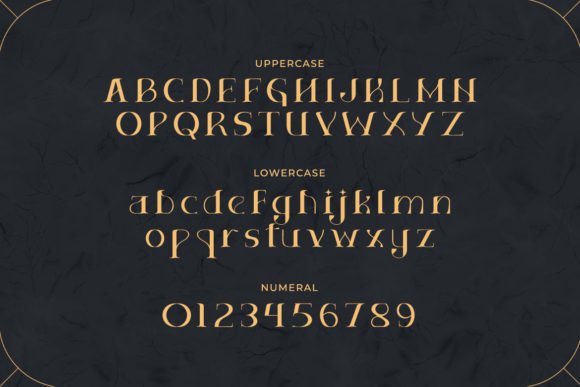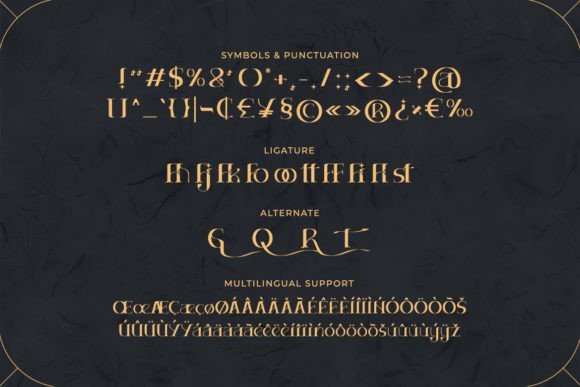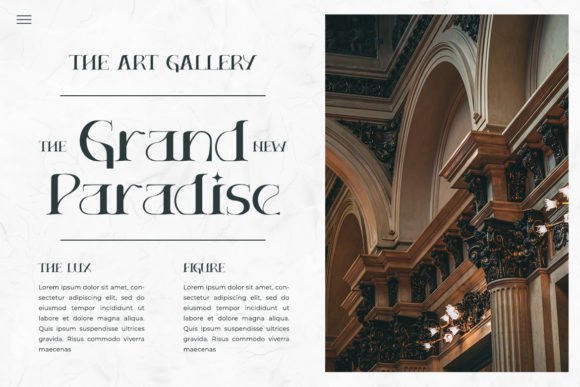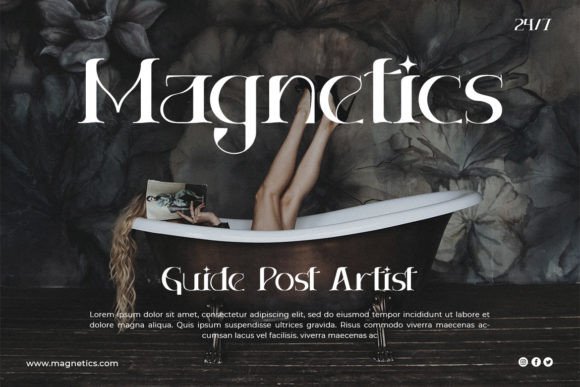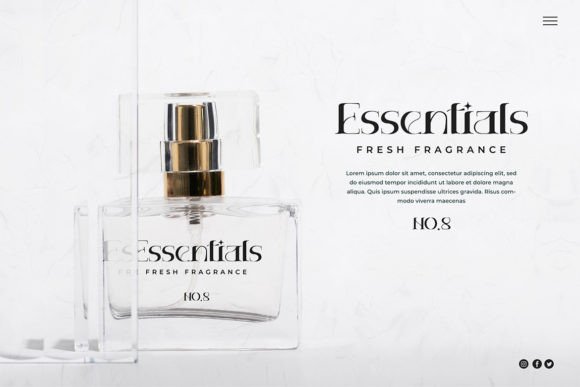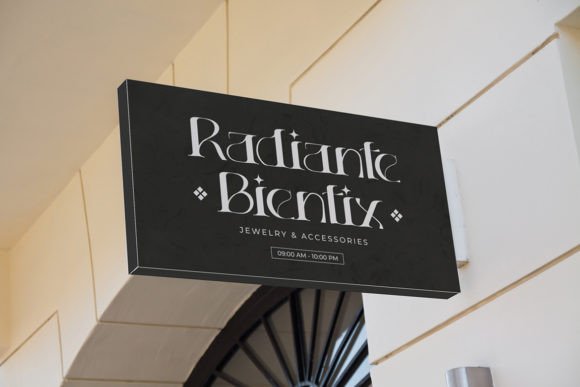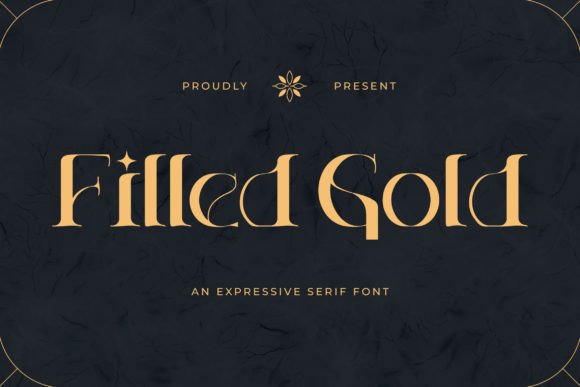
Introducing Filled Gold Font: Elevate Your Designs with Elegance and Sophistication
In the world of typography, fonts play a crucial role in conveying the tone and personality of a design. For designers and crafters seeking to add a touch of luxury and sophistication to their projects, Filled Gold Font is an exceptional choice. This stunning serif font is designed to make a statement, offering an expressive and stylish way to elevate your designs.
The Allure of Filled Gold Font
Filled Gold Font is a masterpiece of typographic design, boasting a unique blend of classic elegance and modern flair. Its serif design adds a touch of refinement, making it perfect for projects that demand a high level of sophistication. The font’s filled gold style gives it a luxurious feel, evoking the opulence of gold and the prestige that comes with it.
Key Features of Filled Gold Font
• Expressive and Stylish: Filled Gold Font is designed to make a statement. Its bold, filled gold style ensures that your text stands out, grabbing the attention of your audience.
• Serif Elegance: The serif design of Filled Gold Font adds a touch of classic elegance, making it suitable for projects that require a level of sophistication.
• Versatile: This font is incredibly versatile, suitable for a wide range of projects, from branding and advertising to packaging and digital media.
• Highly Readable: Despite its bold style, Filled Gold Font remains highly readable, ensuring that your message is conveyed clearly and effectively.
Use Cases for Filled Gold Font
Filled Gold Font is an incredibly versatile typeface, suitable for a wide range of projects and applications. Here are some use cases where this font truly shines:
• Branding and Logo Design: Create a lasting impression with a luxurious brand identity that exudes elegance and sophistication.
• Advertising and Marketing: Grab attention and make a statement with bold, eye-catching headlines that demand to be noticed.
• Packaging Design: Elevate your product packaging with a touch of luxury, making your products stand out on store shelves.
• Digital Media: Use Filled Gold Font to create stunning social media graphics, website headers, and more, adding a level of sophistication to your online presence.
Tips for Using Filled Gold Font
To get the most out of Filled Gold Font, consider the following tips:
• Pair with Contrasting Fonts: Combine Filled Gold Font with contrasting fonts to create visual interest and hierarchy in your designs.
• Experiment with Colors: While the gold style is stunning, don’t be afraid to experiment with other colors to match your brand’s identity or project requirements.
• Use it Sparingly: Due to its bold style, use Filled Gold Font sparingly to avoid overwhelming your design. It works best as a headline or title font.
Filled Gold Font is an exceptional choice for designers and crafters seeking to add a touch of luxury and sophistication to their projects. Its expressive and stylish serif design makes it perfect for a wide range of applications, from branding and advertising to packaging and digital media. With its versatility, readability, and stunning gold style, Filled Gold Font is sure to elevate your designs and make a lasting impression on your audience.